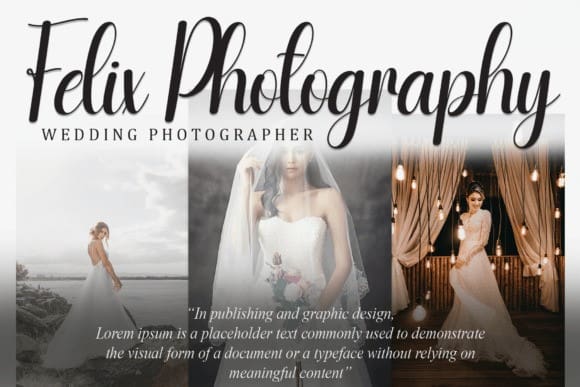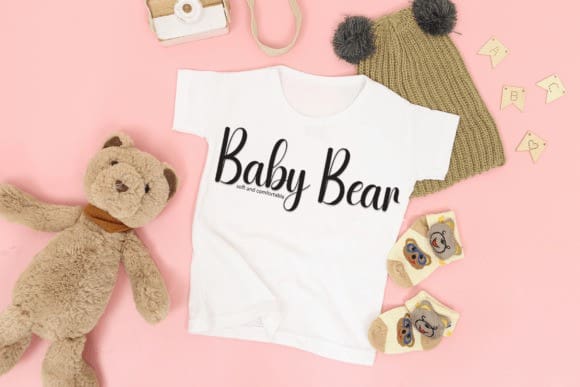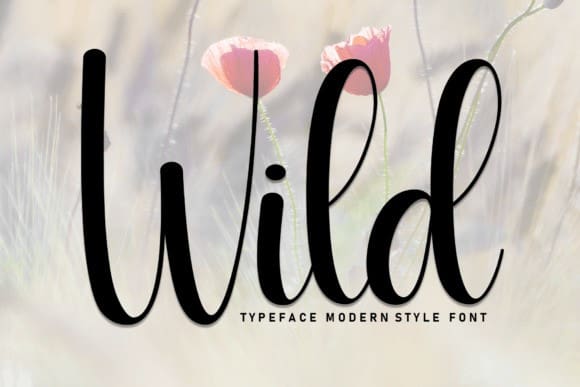
Wild Script Font
Wild Script Font is a sweet and friendly handwritten font. Fresh and cute, this font is ideal for writing wedding invitations, cards, or any other design that might need a fun touch!